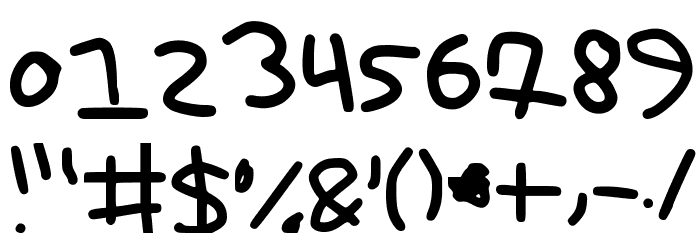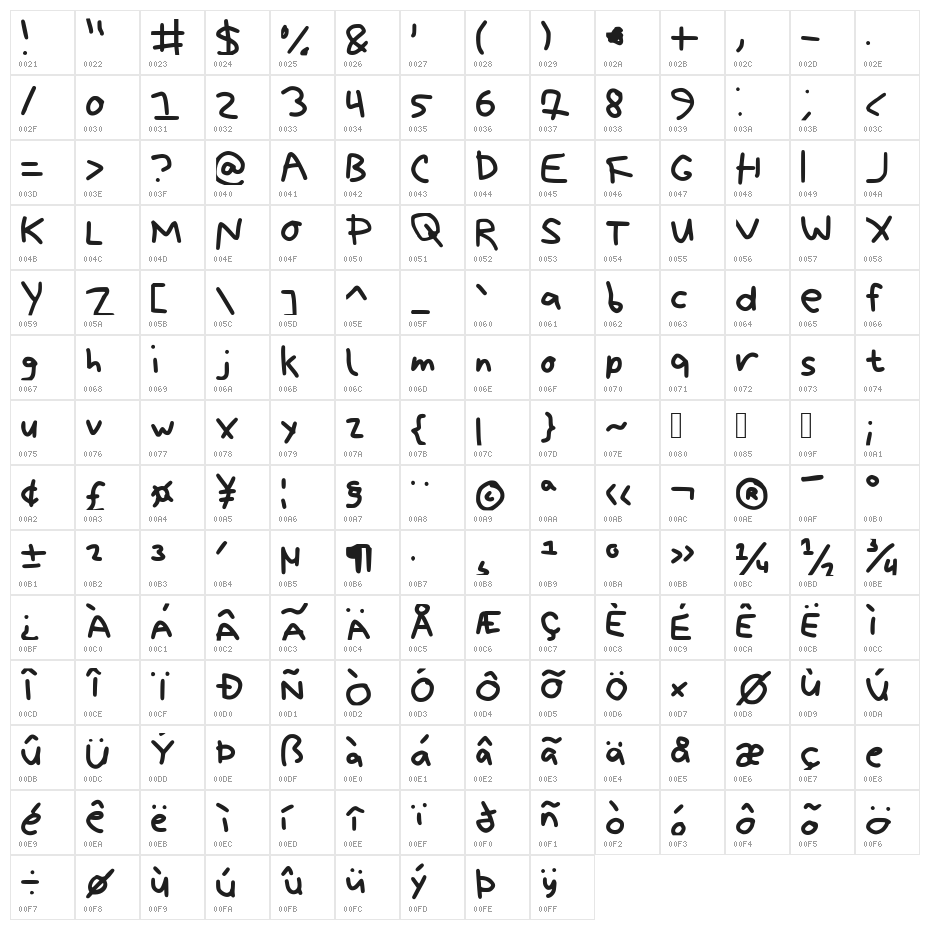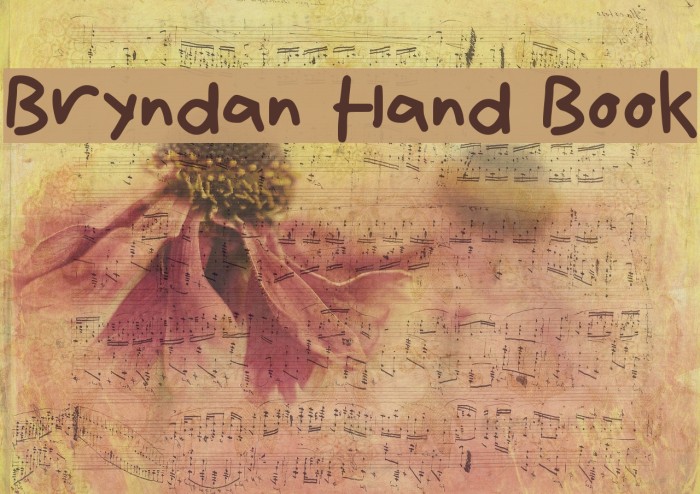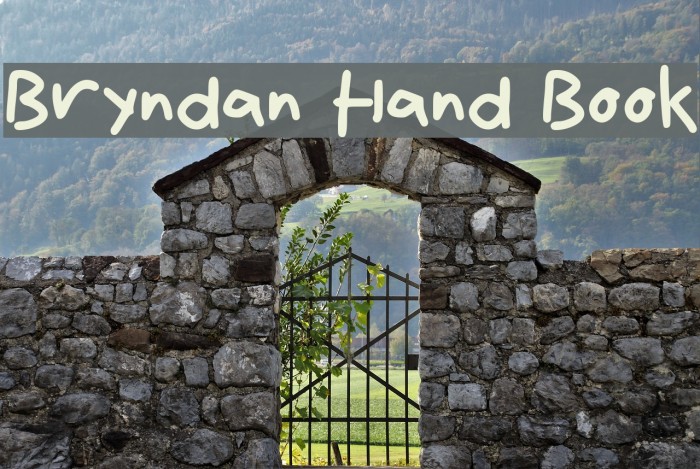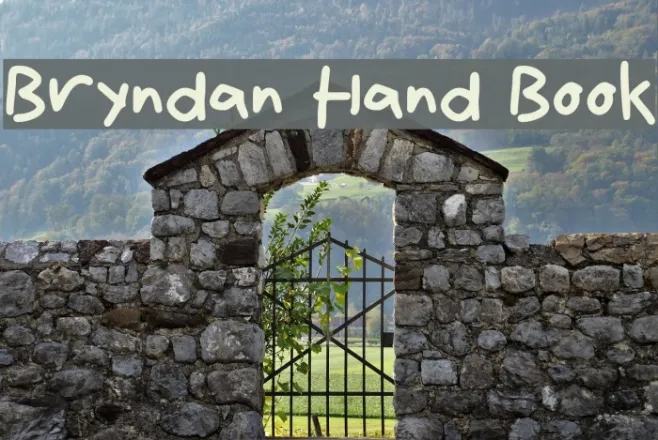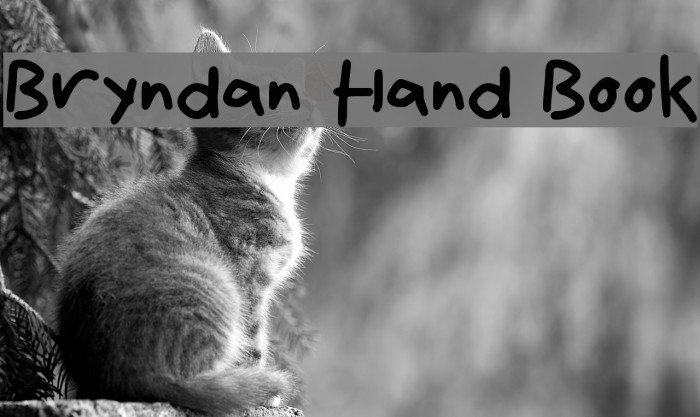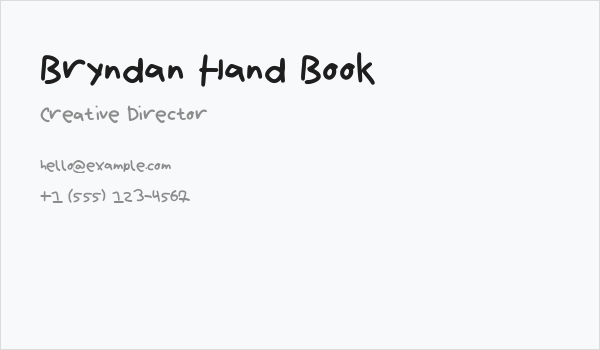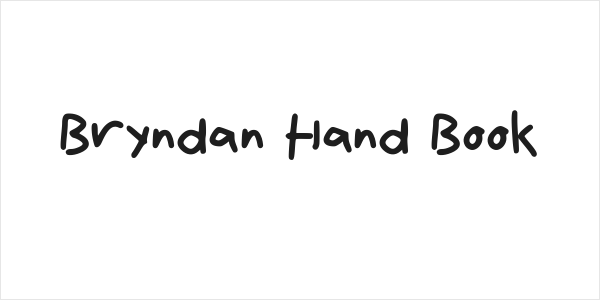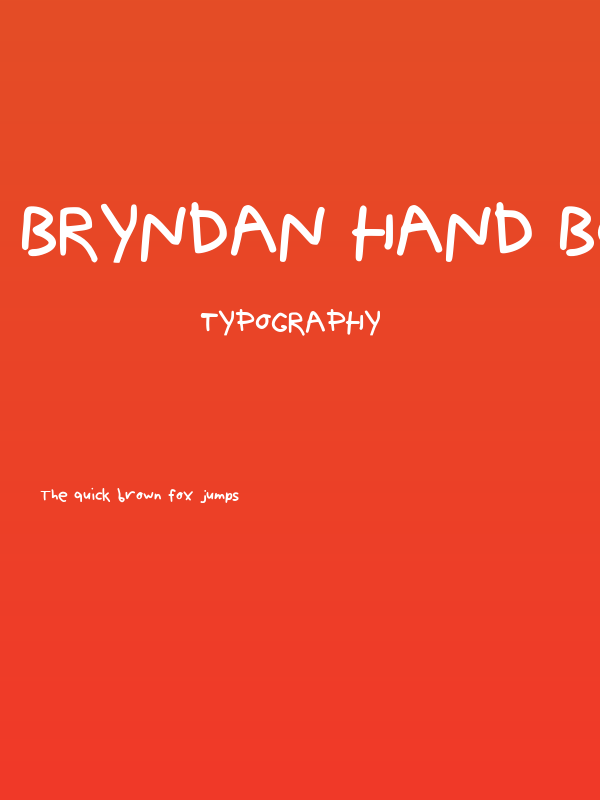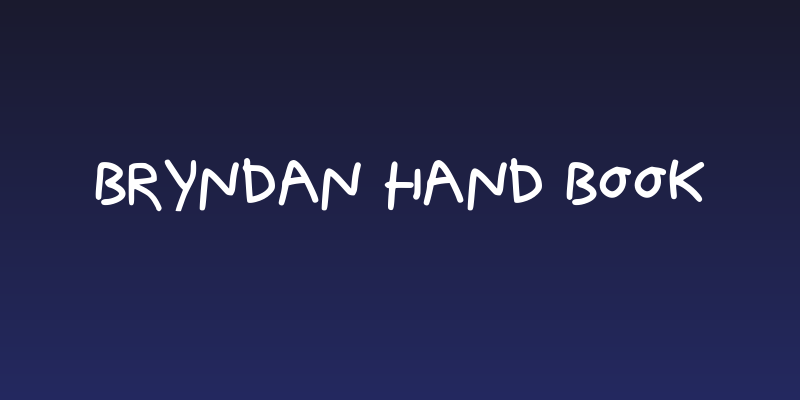
Bryndan Hand Book Font
Bryndan Hand Book Description
This font features a playful and casual handwritten style, characterized by its uneven strokes and organic flow. The letters have a slightly irregular baseline, giving them a dynamic and lively appearance. The uppercase and lowercase letters maintain a consistent style, with rounded edges and a friendly demeanor. The numbers and special characters follow the same informal aesthetic, making the font suitable for projects that require a personal touch. Its overall appearance is approachable and informal, ideal for conveying warmth and creativity.
Overall StyleCasual, Playful
Use CaseHeadlines, Informal text, Creative projects
Proposed ProjectsIdeal for greeting cards, children's books, informal invitations, and creative branding.